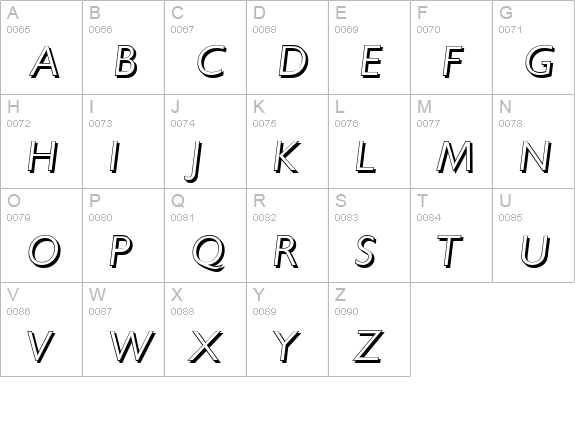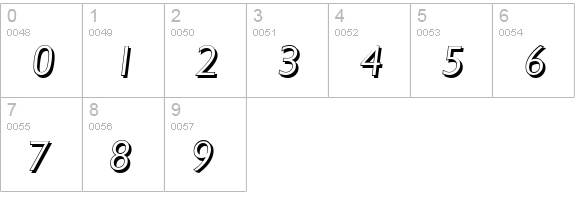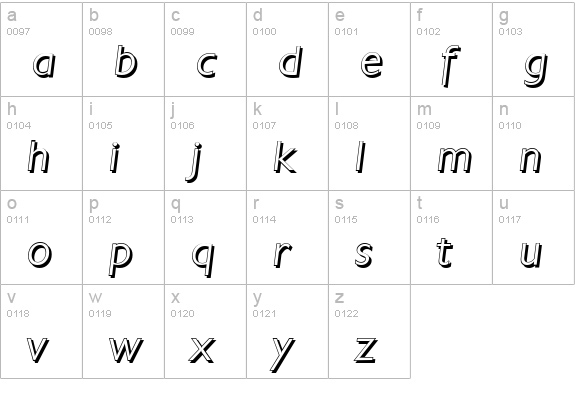
ChantillyShadow-Light-Italic is a refined, elegant, italic variant in the ChantillyShadow typeface family \xE2\x80\x94 well suited to elegant body text, refined sub-headings, and luxury branding.
ChantillyShadow-Light-Italic font is a sophisticated and elegant typeface that exudes a sense of grace and refinement. Its delicate and flowing design features subtle shadows that add a touch of depth and dimension to each character. The italic style gives the font a sense of movement and dynamism, making it perfect for projects that require a touch of sophistication. What's even better is that ChantillyShadow-Light-Italic font is available for free download at FontsMarket.com. This means that you can easily add this beautiful font to your collection without any cost. Whether you're working on a formal invitation, a stylish logo, or a classy branding project, ChantillyShadow-Light-Italic font is sure to elevate your design and leave a lasting impression. Don't miss out on this fantastic opportunity to enhance your creative projects with this stunning typeface. Download it now and start creating beautiful designs today!